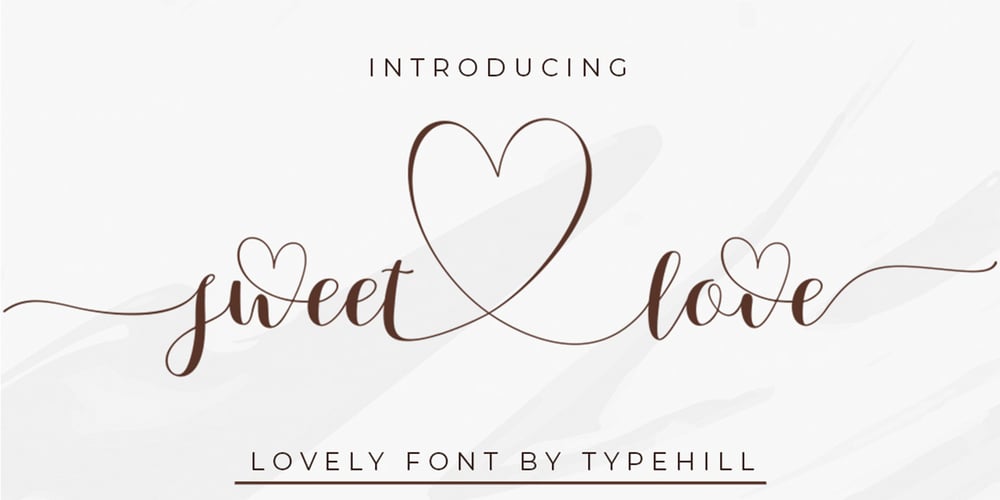
Sweet Love Script
Sweet Love Script font
Sweet Love Script Font Family was designed by Teuku Fahruddin and published by Typehill Studio. Sweet Love Script contains 1 styles and family package options. Sweet Love is a new modern script font with an irregular baseline. Trendy and feminine style. Sweet Love looks lovely on wedding invitations, thank you cards, quotes, greeting cards, logos, business cards and more. Perfect for using in ink or watercolour. Including initial and terminal letters, alternates, ligatures and multiple language support.To enable the OpenType Stylistic alternates, you need a program that supports OpenType features such as Adobe Illustrator CS, Adobe Indesign & CorelDraw X6-X7, Microsoft Word 2010 or later versions. There are additional ways to access alternates/swashes, using Character Map (Windows), Nexus Font (Windows), Font Book (Mac) or a software program such as PopChar (for Windows and Mac).